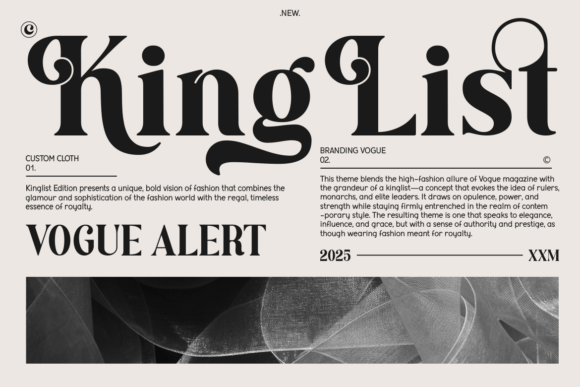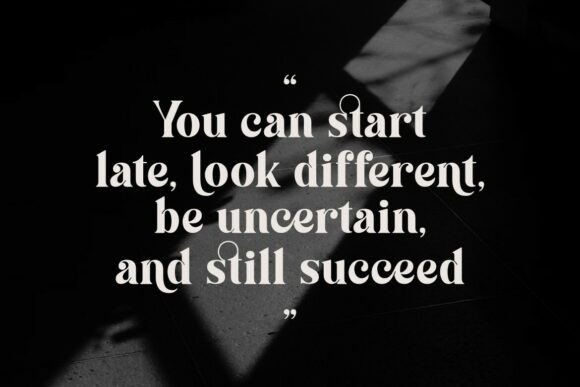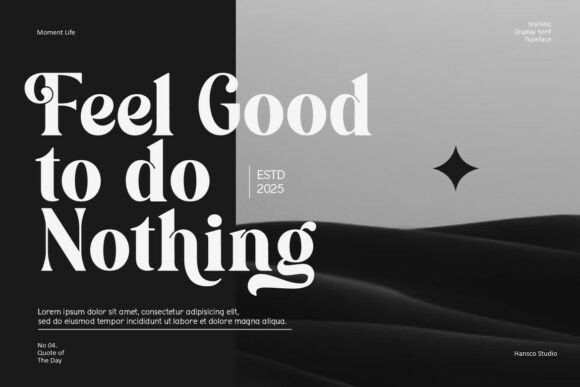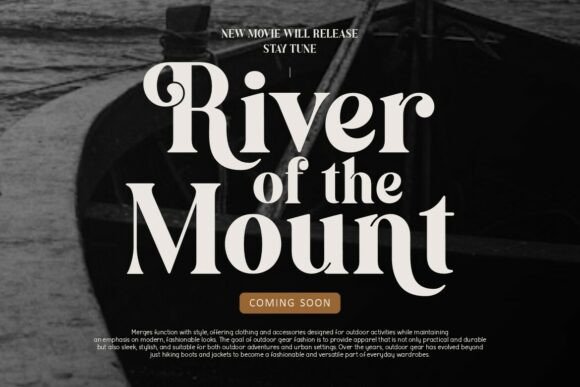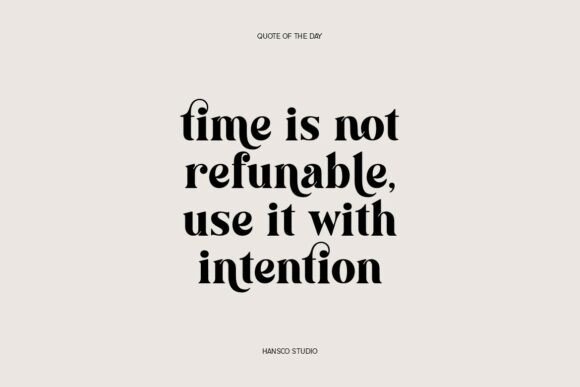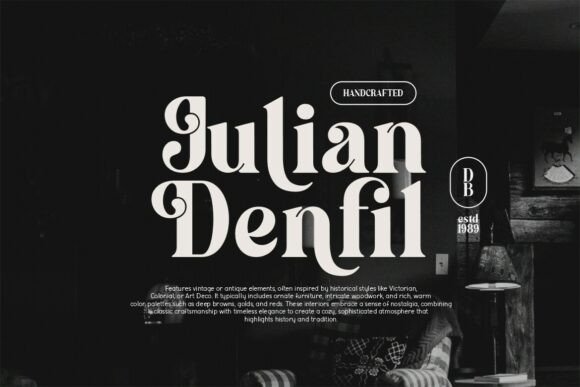
Unlock the Timeless Elegance of Castle Bridge Font
Have you ever found yourself poring over old book covers, antique posters, or vintage advertisements, searching for the perfect font to evoke a sense of luxury and sophistication? You’re not alone. As designers, we’re always on the lookout for fonts that exude refinement and charm, and that’s exactly what Castle Bridge Font delivers.
Castle Bridge Font is a masterfully crafted display serif font that seamlessly blends vintage charm with modern elegance. Its sharp swashes and classic styling make it an ideal choice for projects that demand a high-end, timeless aesthetic. With a wide range of stylistic alternatives, including uppercase, lowercase, and ligature variations, Castle Bridge Font offers designers the creative freedom to push the boundaries of their imagination.
Castle Bridge Font Key Features
- Font Family: Castle Bridge Font is a serif font family designed for readability and elegance.
- Character Set: Supports a wide range of characters, including Latin, Cyrillic, and Greek alphabets, as well as punctuation and symbols.
- Unique Characteristics: Castle Bridge Font features a unique blend of traditional and modern design elements, with subtle flair and sophistication.
Castle Bridge Font Review
Overall, the Castle Bridge Font is an interesting choice for designers looking to add a unique touch to their projects. Here’s what I think works well:
- ✨ It’s got a nice, elegant feel to it, making it perfect for high-end branding and luxury products.
- ✨ The font is highly customizable, allowing you to adjust the weight, spacing, and other settings to fit your design needs.
- ✨ Castle Bridge Font includes a wide range of languages and character sets, making it suitable for global projects.
- ⚠️ The font might be a bit too ornate for some designs, potentially overpowering the content.
- ⚠️ Some of the characters may not render correctly at very small font sizes, which could be a problem for mobile or web applications.
In terms of overall impression, I’d say the Castle Bridge Font is a solid choice for designers who want to add a touch of sophistication to their projects. While it’s not perfect, it’s a versatile and highly customizable font that can be a great addition to your design toolkit.
The Castle Bridge Font is ideal for:
- Editorial and publishing content
To get the most out of the Castle Bridge Font, try:
- Using it in combination with other elegant fonts for a sophisticated look.
- Experimenting with different font sizes and colors to create visual interest
Alternatives to Castle Bridge Font
Montserrat is a sans-serif font designed by Julieta Ulanovsky. It’s a clean and modern font suitable for headings and body text. Montserrat is ideal for use in digital products, apps, and websites where readability is crucial.
Compared to Castle Bridge Font, Montserrat has a more geometric and minimalist design. While Castle Bridge Font has a more rustic and elegant feel, Montserrat is better suited for modern and tech-related designs.
Playfair Display is a luxurious and elegant serif font designed by Claus Eggers Sørensen. It’s perfect for use in high-end branding, advertising, and editorial content where a touch of sophistication is required.
Compared to Castle Bridge Font, Playfair Display has a more formal and refined design. While Castle Bridge Font has a more rustic and vintage feel, Playfair Display is better suited for formal and luxury-related designs.